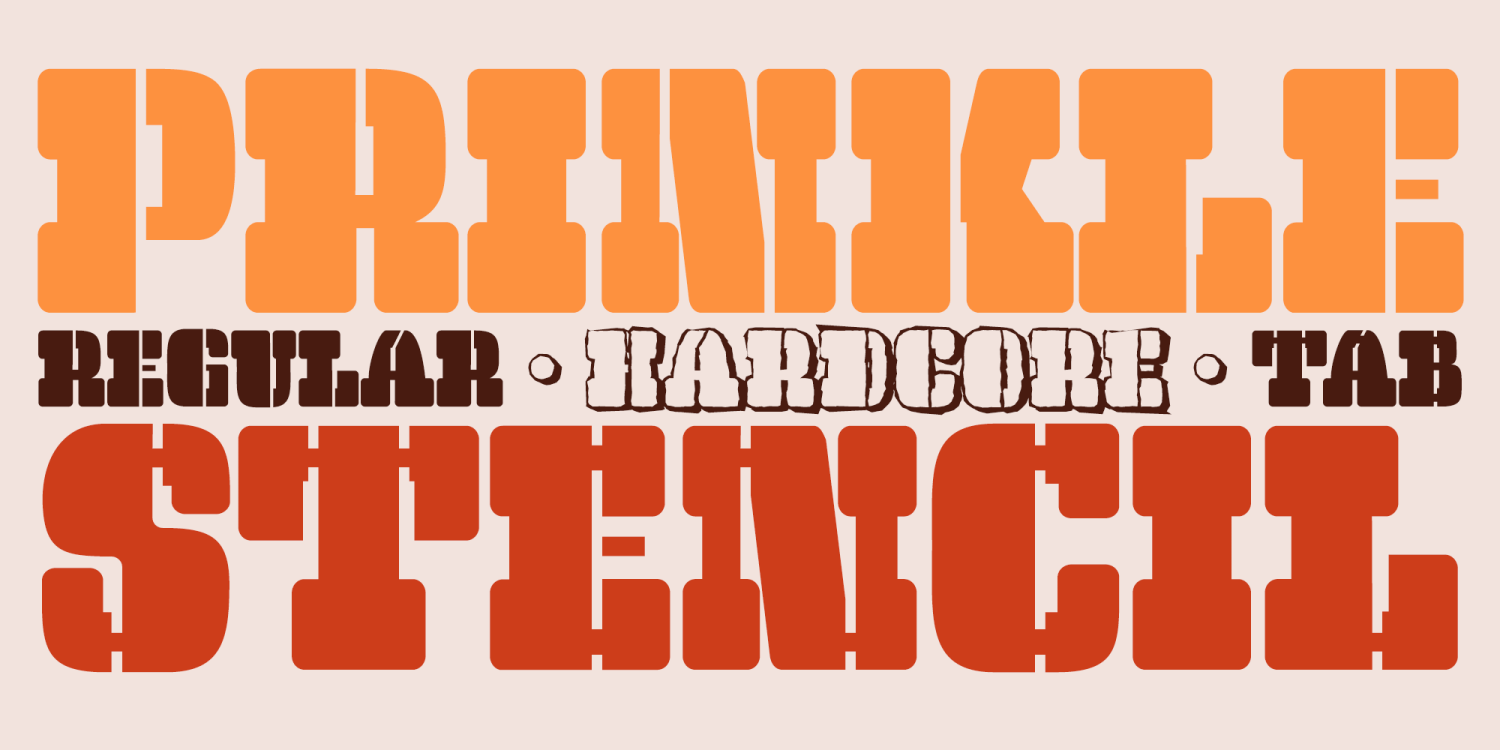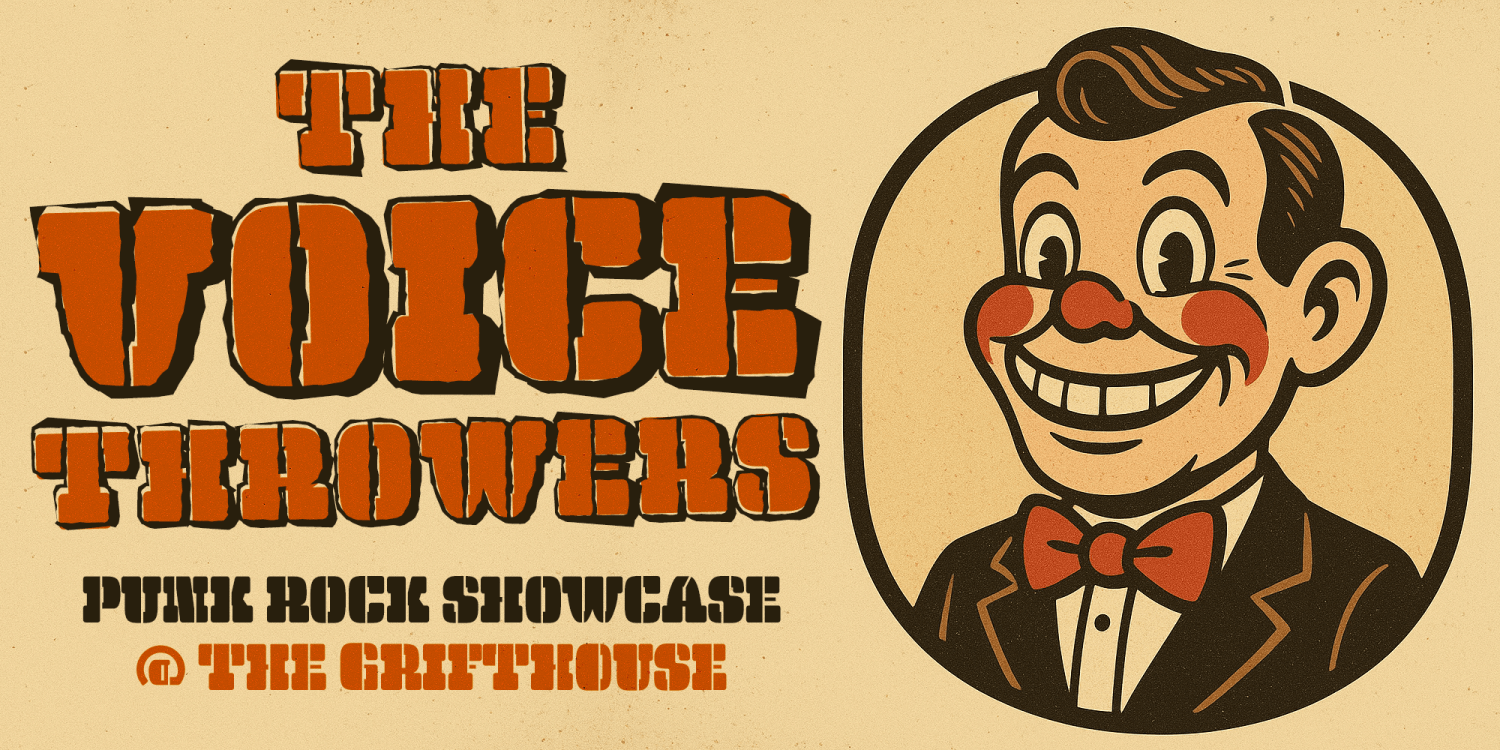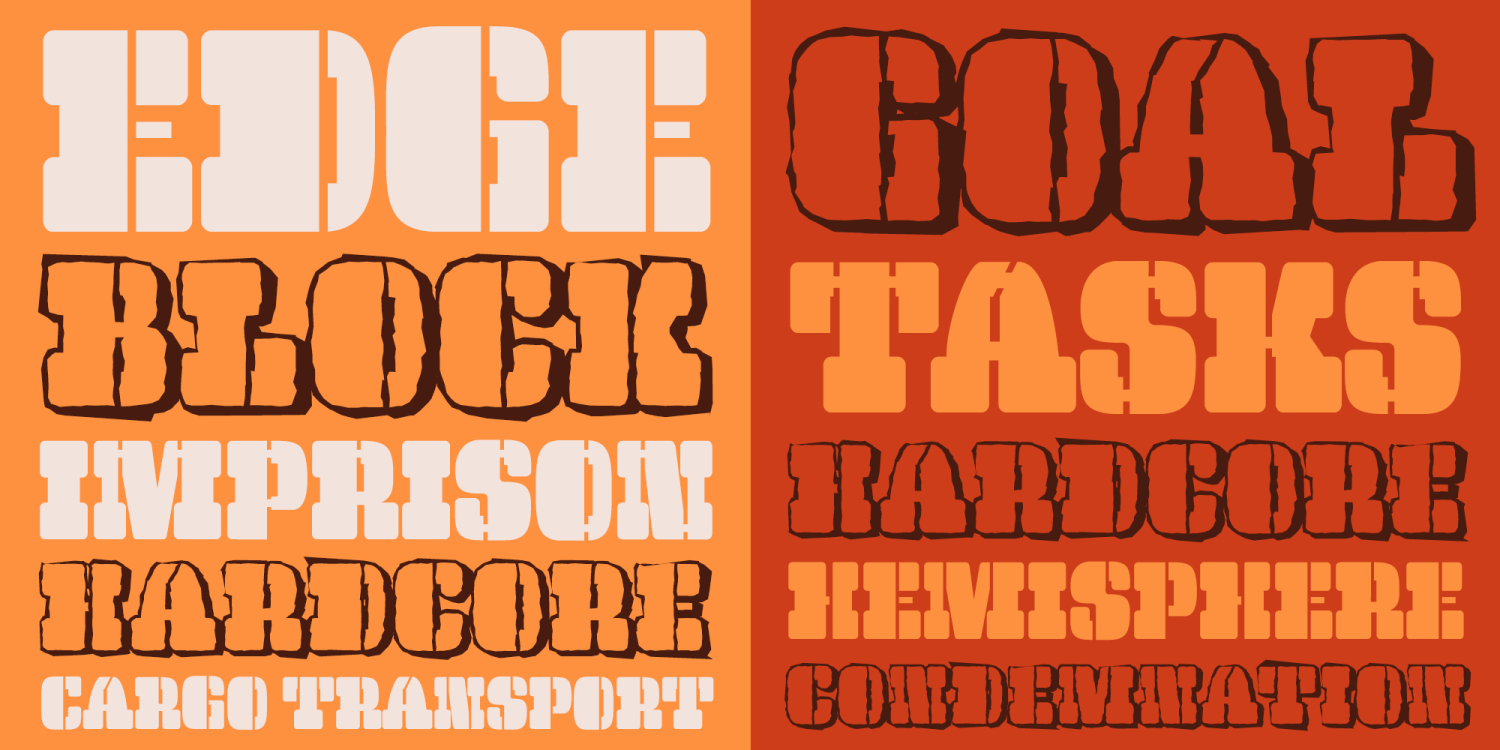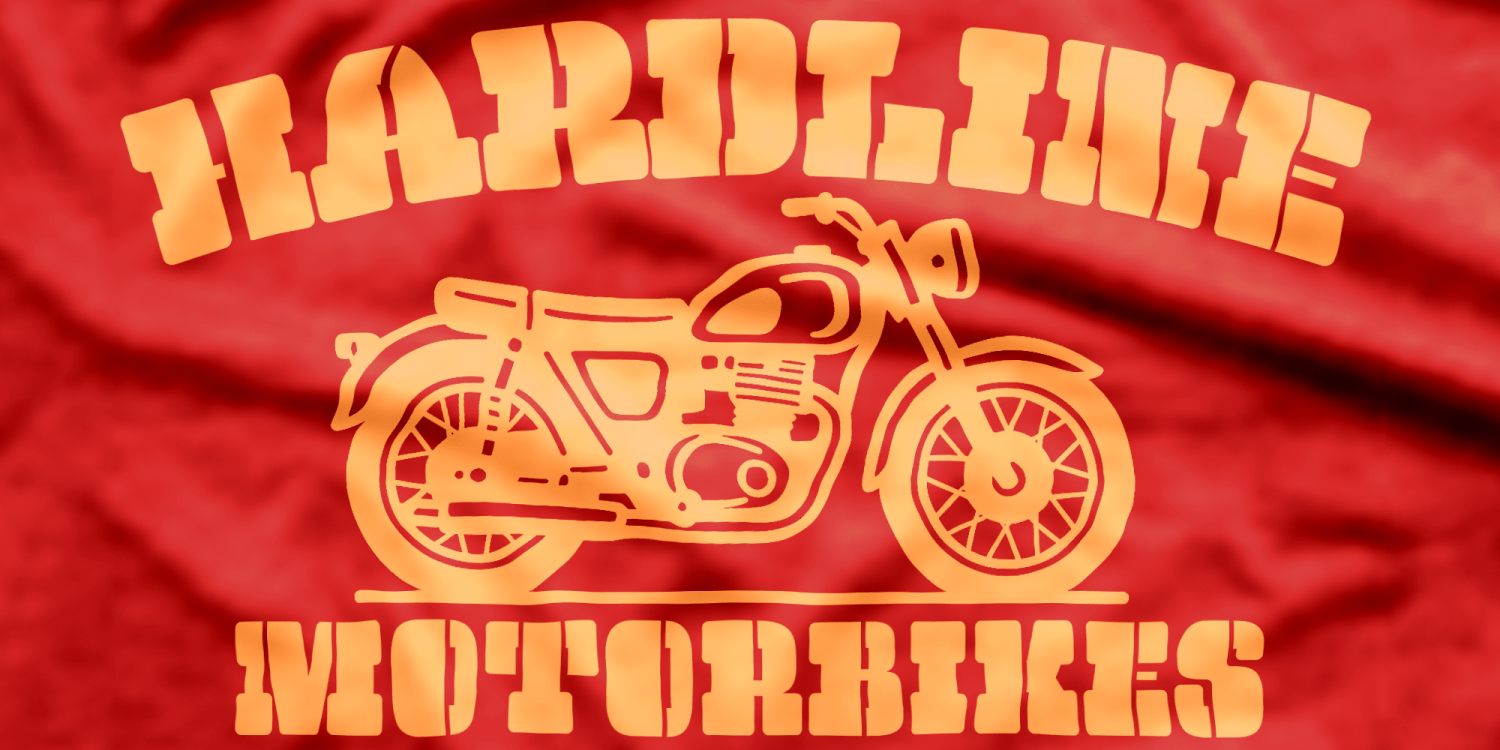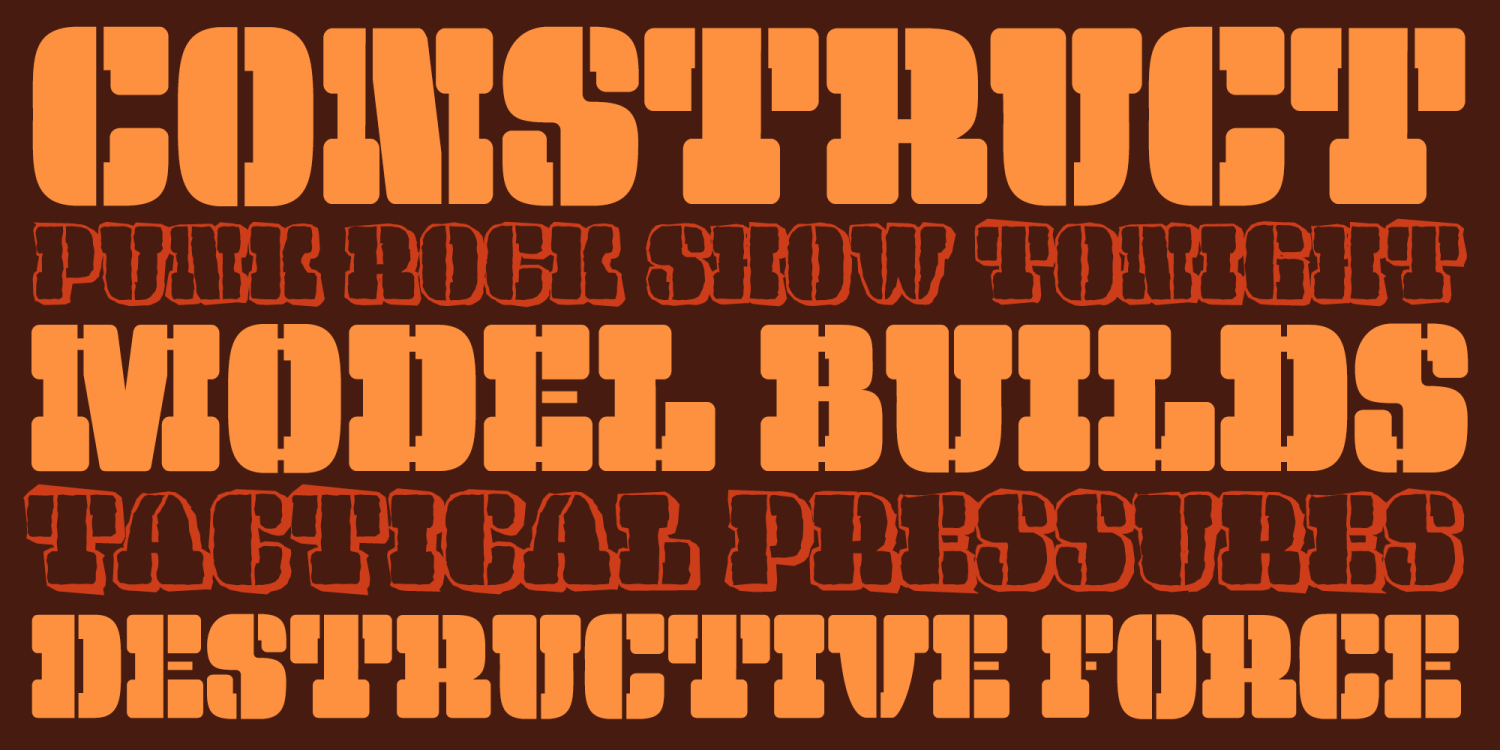
Prinkle Stencil
Prinkle Stencil expands on the playful personality of its parent design with a beefy stencil display that blends vintage wood type energy and quirky film-inspired character. Built on chunky serif forms, Prinkle Stencil offers three distinct styles: a classic divided stencil cut for bold, impactful headlines, a rugged Hardcore variant with grunge-flecked texture, and a connected Tab style that evokes retro plastic model lettering.
Drawing from thick wood type aesthetics and unconventional stencil letter shapes, this family brings a tactile, expressive voice to every word it sets. Prinkle Stencil is perfect for posters, packaging, identity systems, movie titling, event branding, signage, editorial headlines, and any project that needs a bold, character-filled display face with stencil flair. Whether you choose the clean stencil cut, the roughened Hardcore flavor, or the playful Tab connection, this family brings visual weight, personality, and nostalgic charm to your designs.